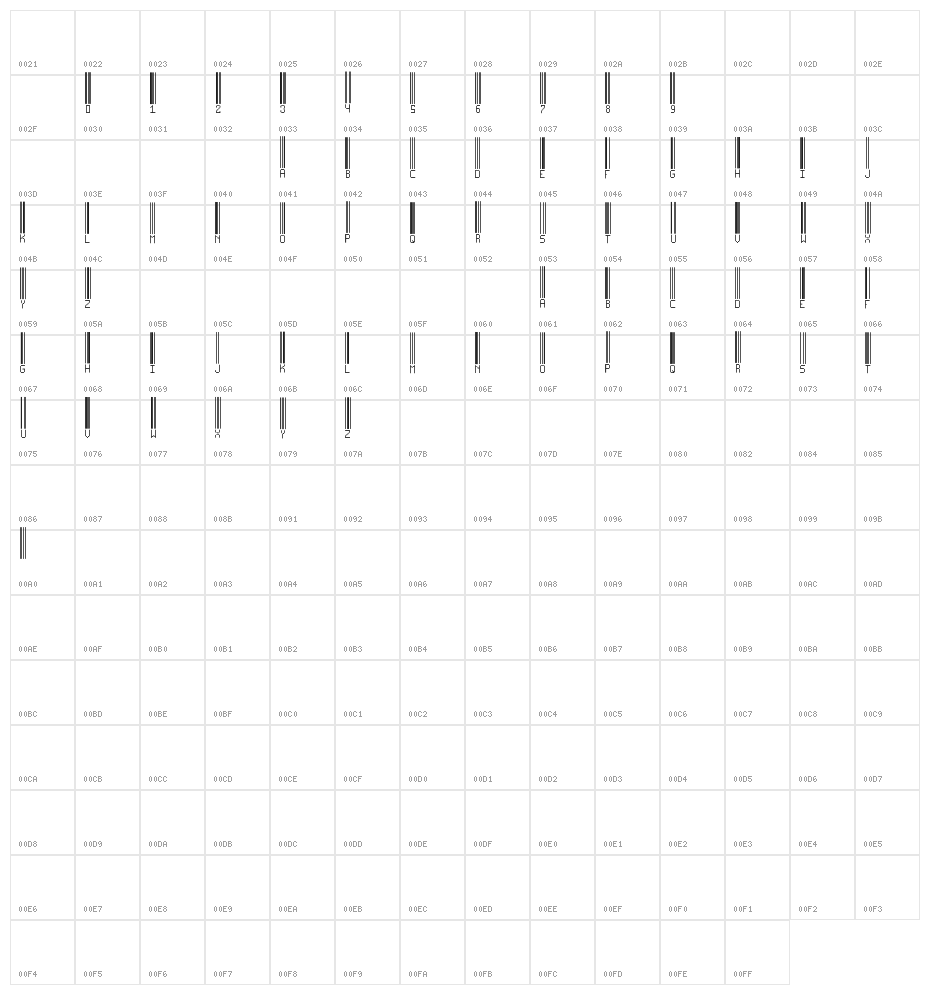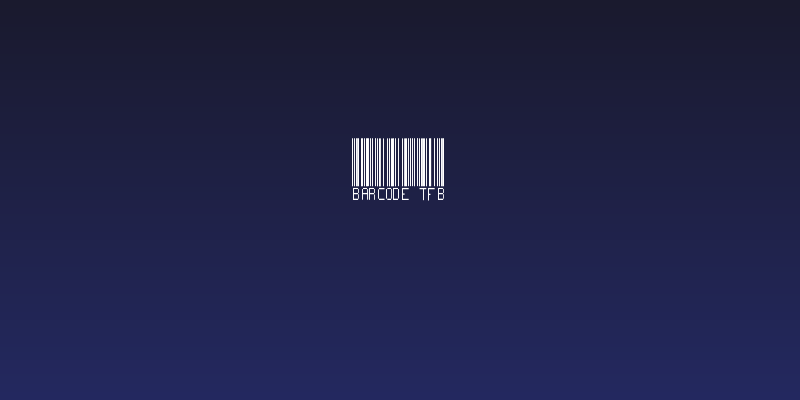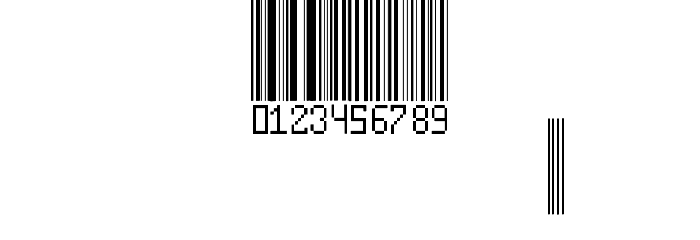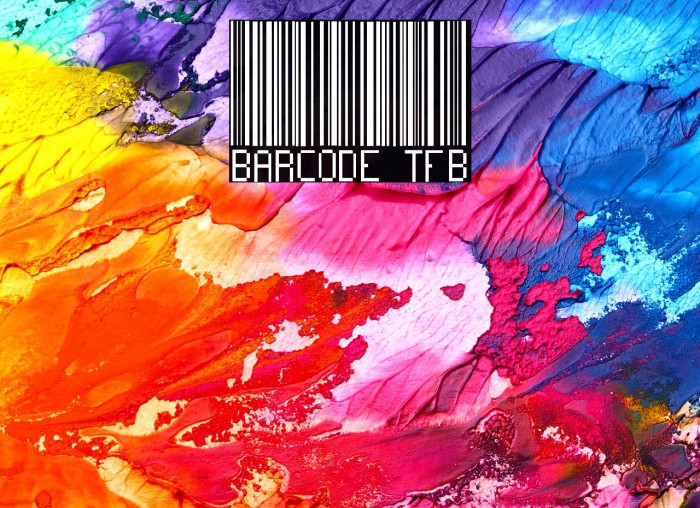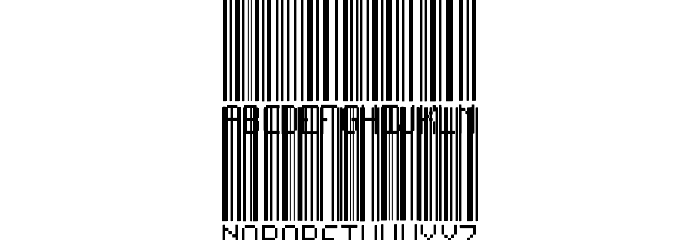
BARCODE TFB Font
BARCODE TFB Description
This font is designed to mimic the appearance of a barcode, with each character represented by a series of vertical lines of varying thickness. The design is highly geometric and linear, creating a digital and mechanical aesthetic. Each letter and number is distinct, yet they all share a uniform height and width, contributing to the overall cohesive look. The font is primarily monochromatic, emphasizing its utilitarian and industrial feel. It is not intended for traditional reading but rather for creating a visual representation of barcodes.
| Use Case | Logos, Decorative elements |
| Proposed Projects | Ideal for projects requiring a barcode aesthetic, such as graphic design, digital art, or themed event invitations. |